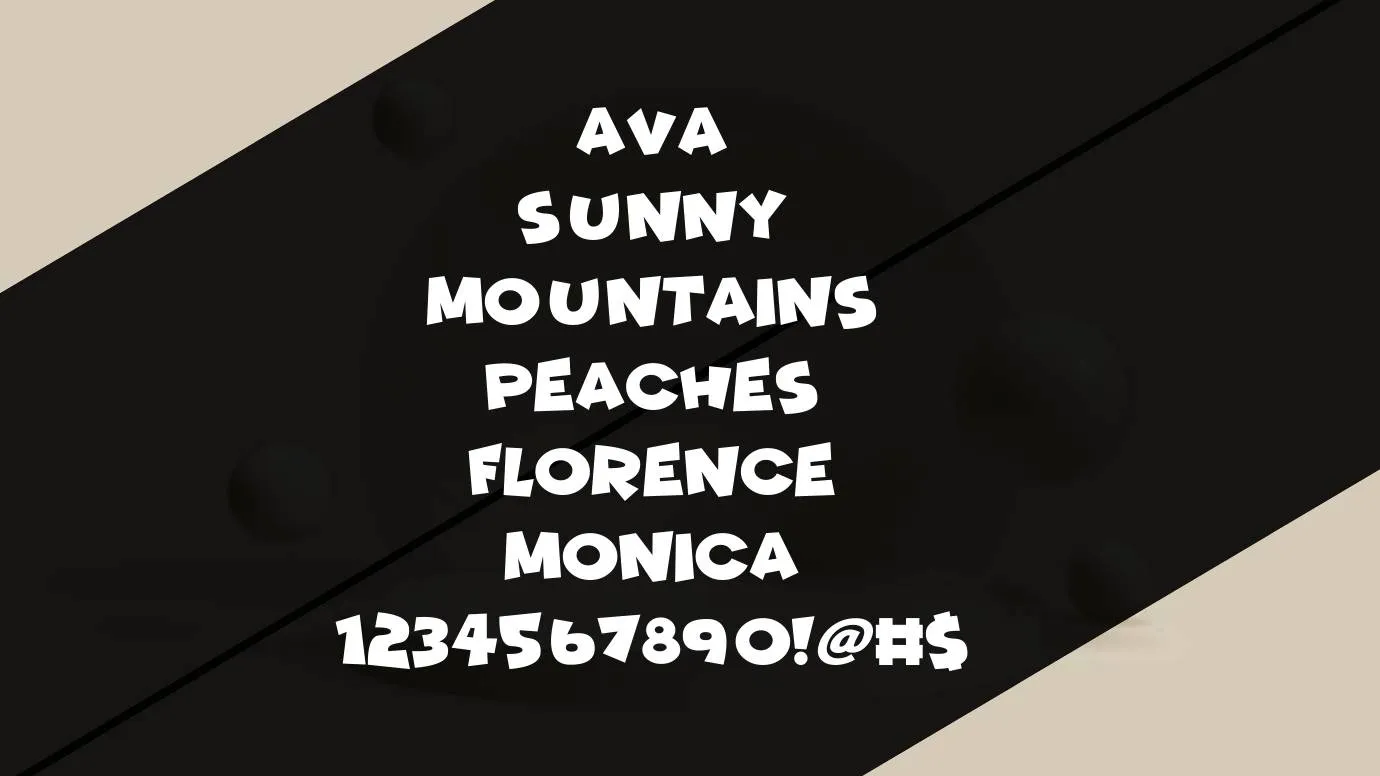
Are you looking for a comic and stylish typeface? I shall present to you an interesting and astonishing typeface in this article. Funhouse Font is a stylish cartoon shape comic typeface. This typeface was designed by a Scotland-based typeface designer.
Funhouse typeface is available in 2 different styles Regular and bold. This typeface is the best choice for invitation cards, logos, shop names, and comic book covers.
Funhouse typeface has a complete set of 109 characters including upper and lower case letters, digits, symbols, and special characters. This typeface also has a complete set of 96 glyphs. This typeface is identical to the funny sports font.
Creator of Funhouse Font
This astonishing and comic typeface is created by Scotland-based typeface designer Darrell Flood foundry in 2017. Darrell Flood is a very famous typeface designer. He designed a lot of typefaces. Many designers use these typefaces in their projects.
This font style is created with an exclusive and regular style. This single attractive style is a combination of different characteristics, including capital alphabets, small alphabets, punctuations, symbols, special characters, glyphs, digits, and several language support.
| Name | Funhouse Font |
| Style | Cartoon |
| Designer | Darrell Flood |
Is Funhouse Font a modern font?
Yes, the Funhouse typeface is a modern typeface. This typeface is created in 2017.
Is Funhouse Font easy to read?
Yes, this typeface is easy to read. You can use this typeface on the covers, titles, and headings.